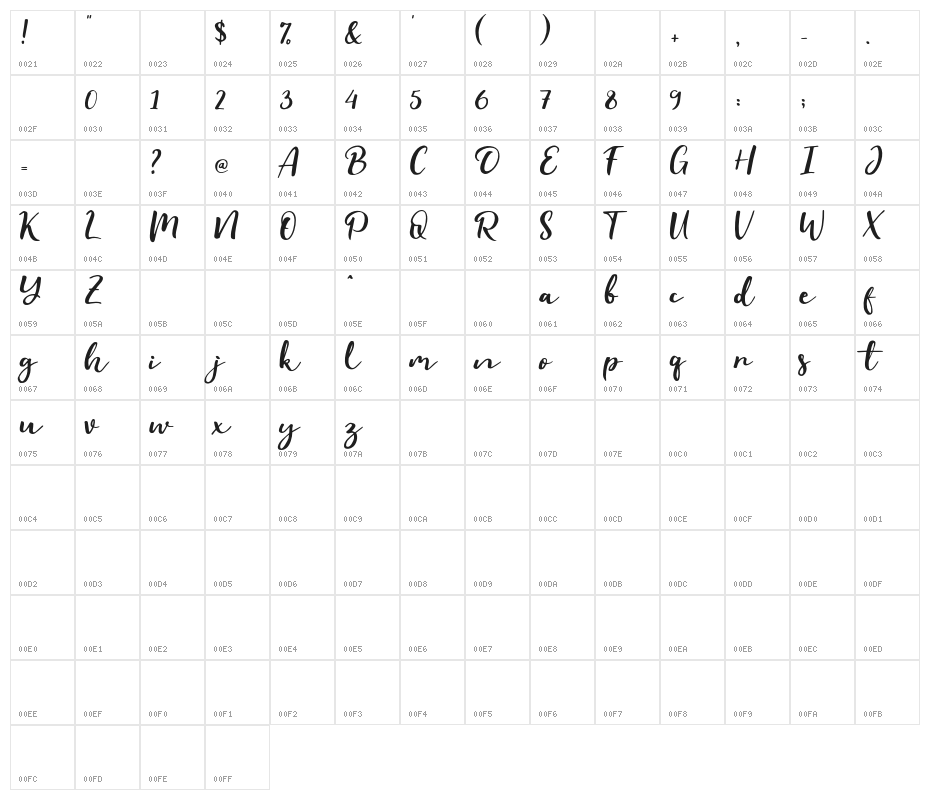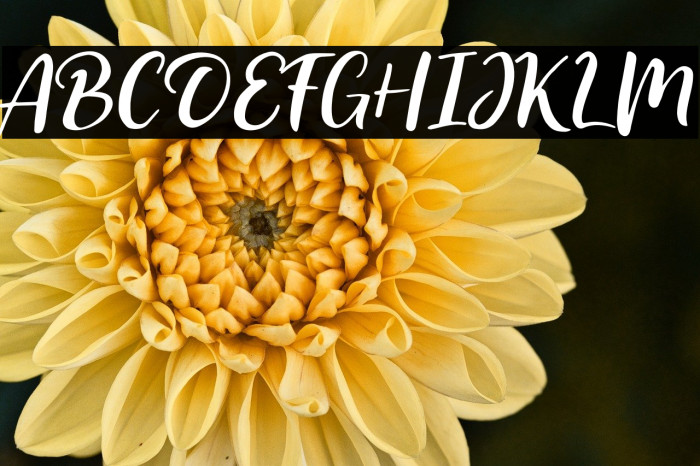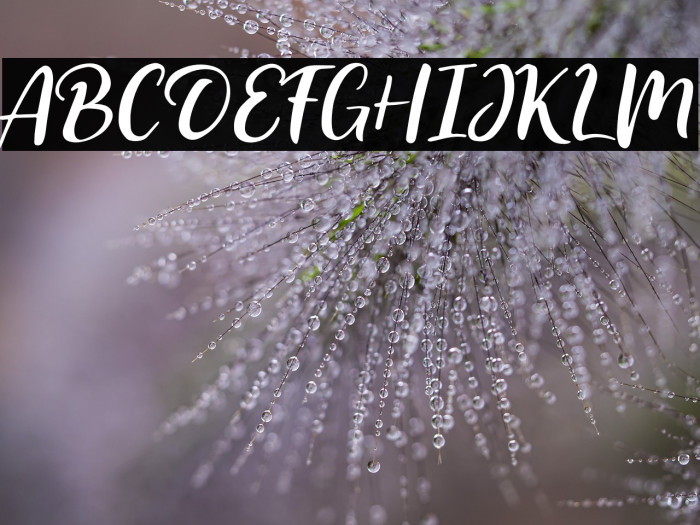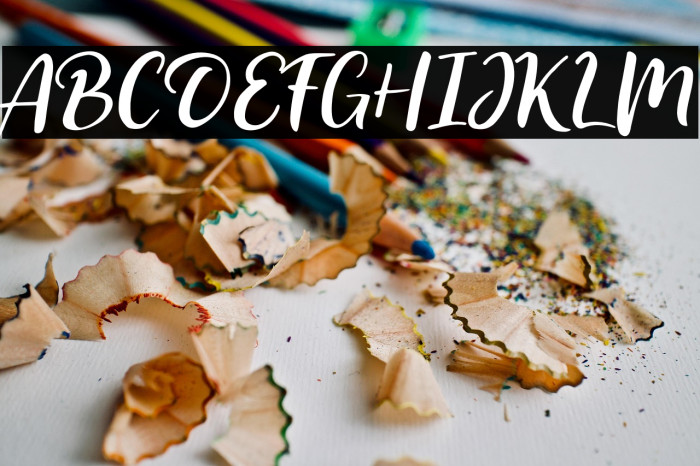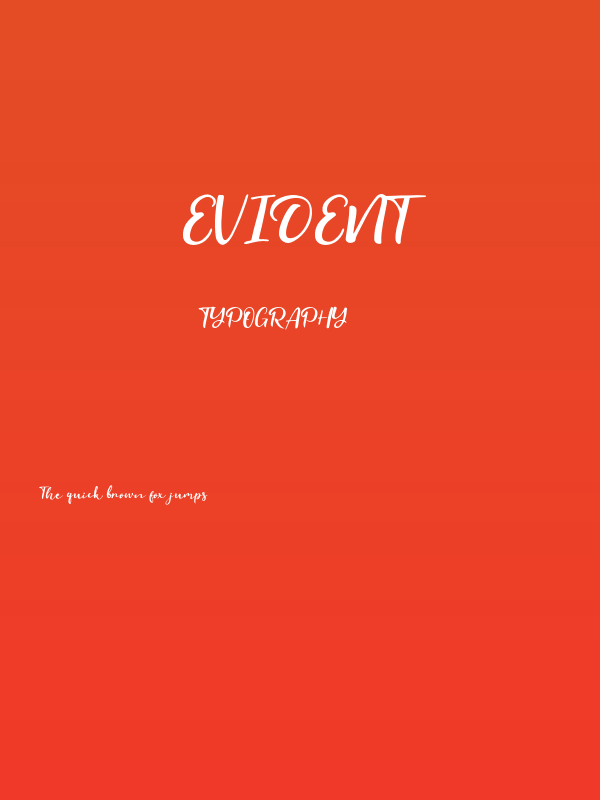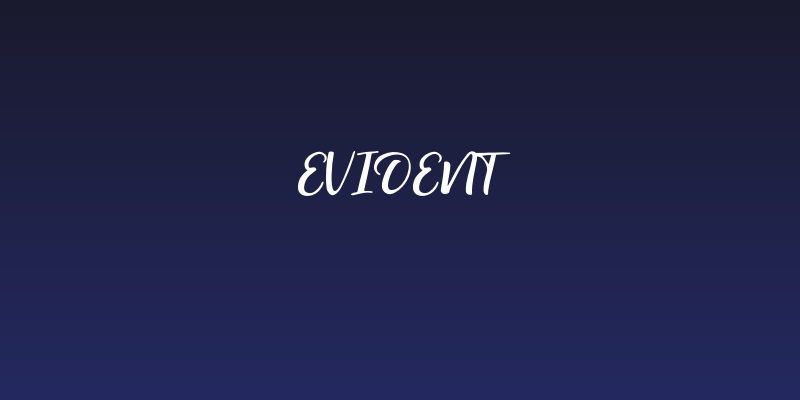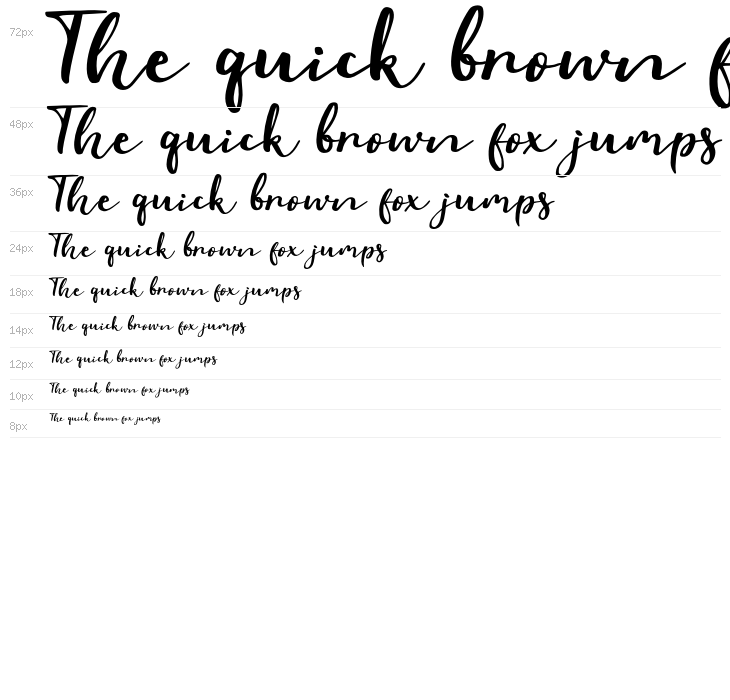
Evident Font
Evident Description
This font features a dynamic and flowing script style, characterized by its elegant and fluid strokes. The uppercase letters are bold and slightly slanted, giving a sense of movement and grace. The lowercase letters maintain a consistent flow, with smooth connections between characters, enhancing readability while preserving a handwritten aesthetic. The numerals are clear and distinct, matching the overall style of the letters. Special characters are designed with the same attention to detail, ensuring they blend seamlessly with the rest of the font. This font exudes a sense of sophistication and creativity, making it ideal for projects that require a personal touch.